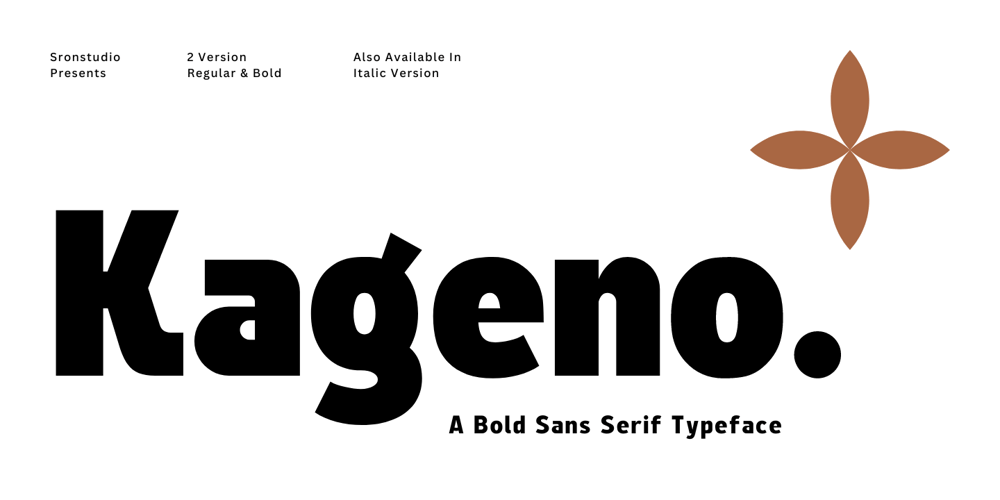
Kageno Font Family was designed by Muhamad Yusron Billah and published by Sronstudio. Kageno contains 4 styles and family package options. Kageno is a bold sans display font that exudes strength and modern style. With its clean lines and impactful presence, it’s perfect for headlines, posters, logos, and branding projects that require a powerful and confident look. Kageno brings boldness and clarity to your designs, making a lasting impression.Included:- Regular, Regular Italic, Bold & Bold Italic- Numeral & Punctuation- PUA Encoded- Multilingual support- Simple Installation- Work both on Mac and WindowsThank you very much ๐